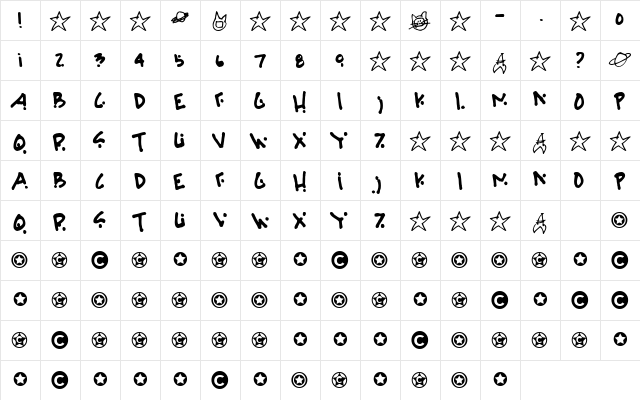
Isotope Regular
Design Context for Isotope Typeface
Isotope is a composed and adaptable typeface that performs quietly and consistently across a wide range of design contexts.